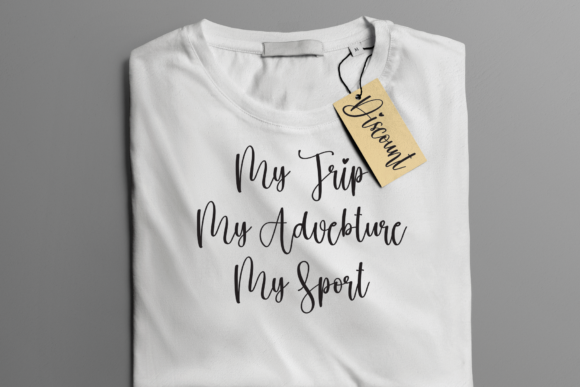
Market Font
db-ku.com - Script & Handwritten -- Market is a lovely and fashionable script font. It is perfect for any branding project such as logos, t-shirt printing, creative products, and more. It will look extraordinary in a variety of contexts.